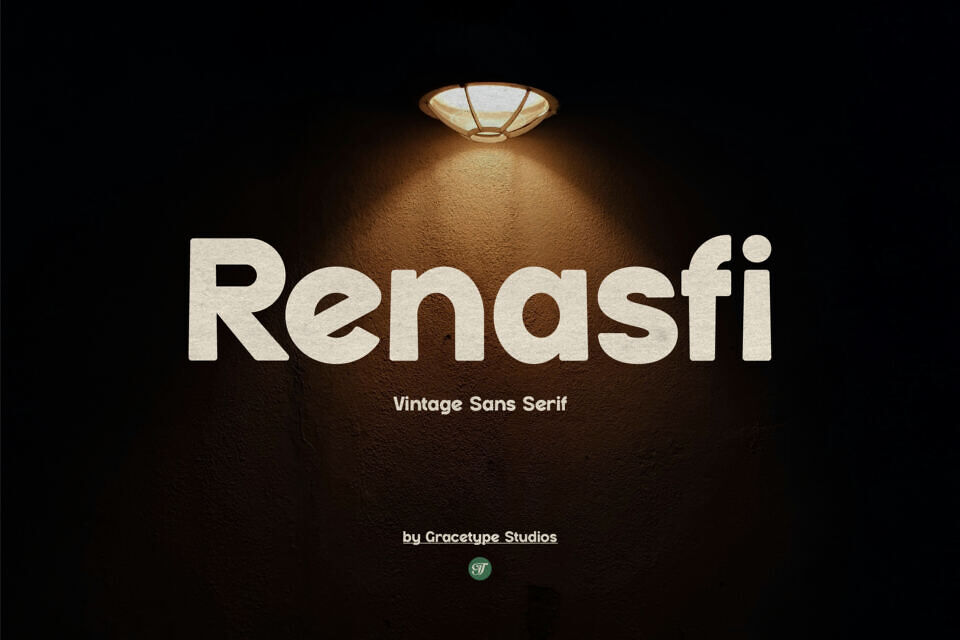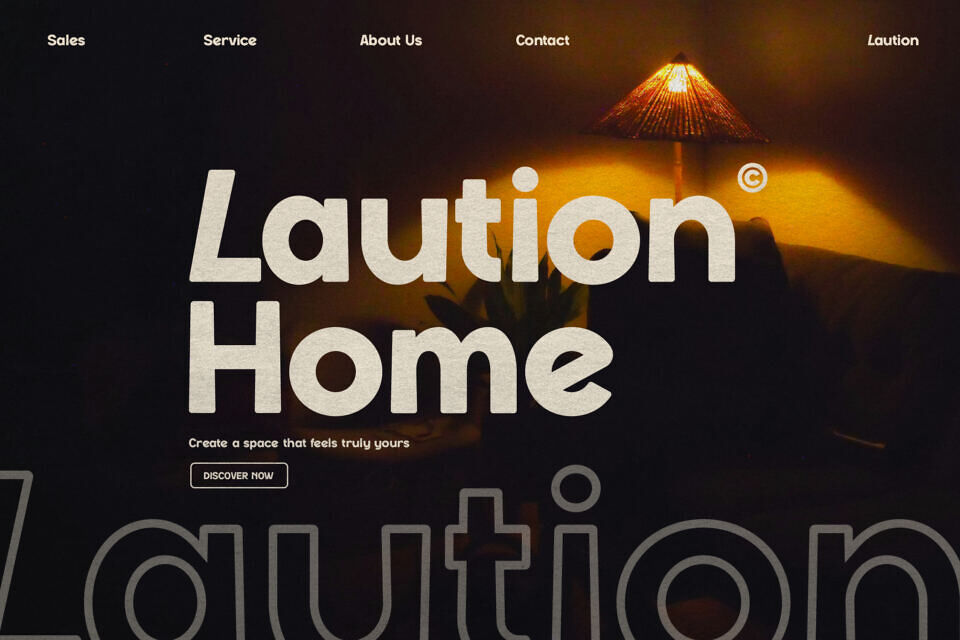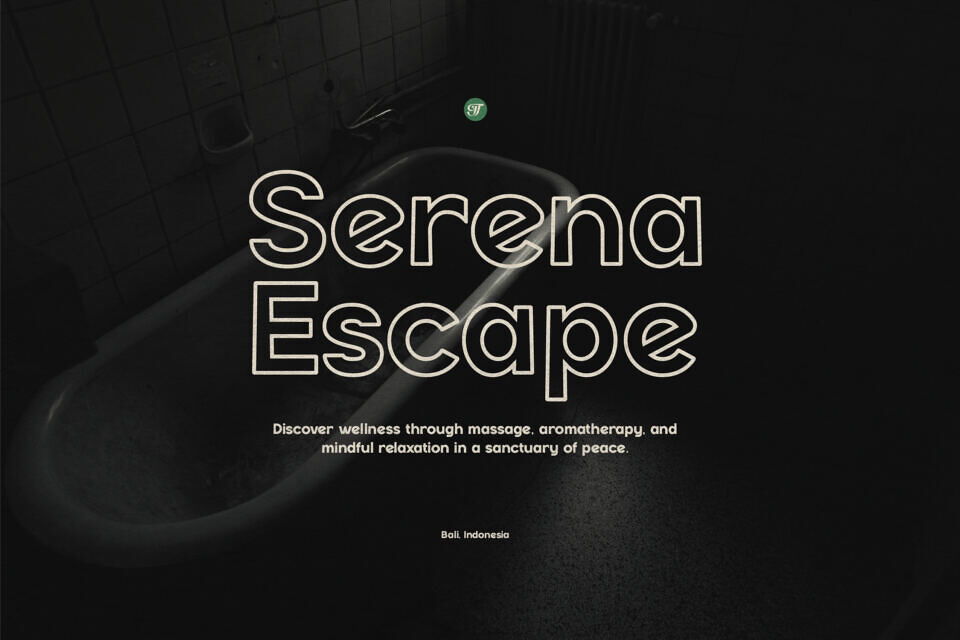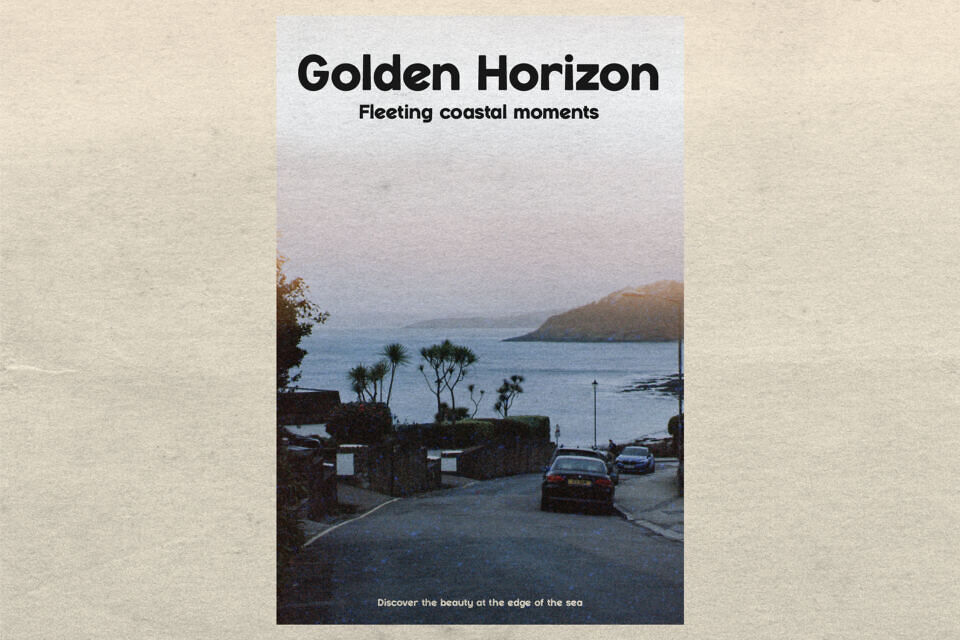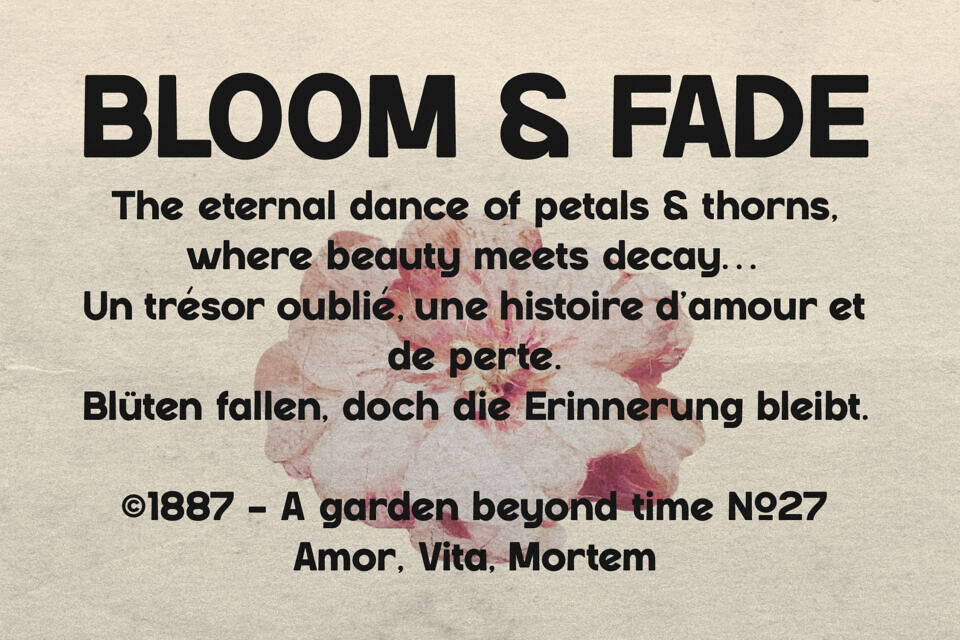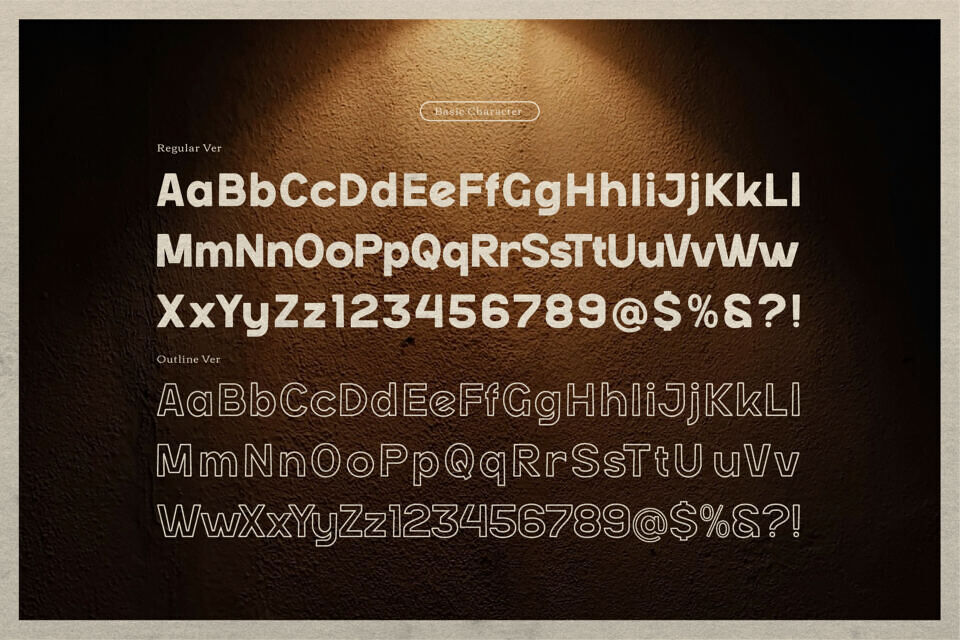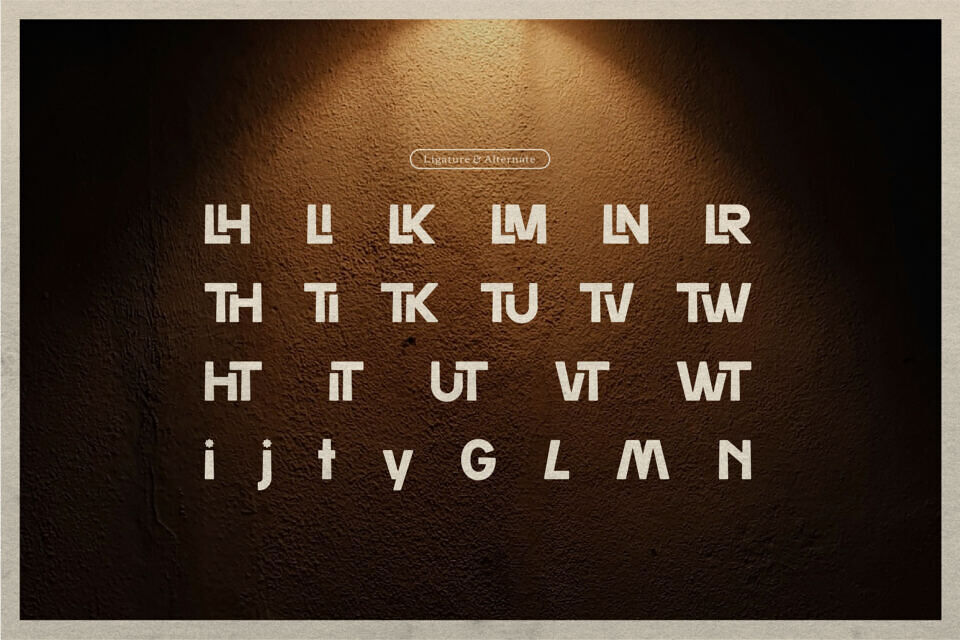
Renasfi Font
Renasfi is a Vintage Sans Serif from Gracetypestudio, suitable for any projects such as: logos, branding projects, homeware designs, product packaging, mugs, quotes, posters, shopping bags, t-shirts, book covers, name card, invitation cards, greeting cards, label, photography, watermark, special events, and all your other lovely projects that need a Vintage taste.